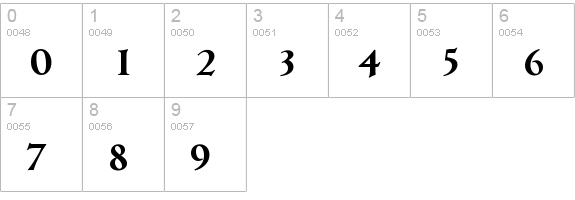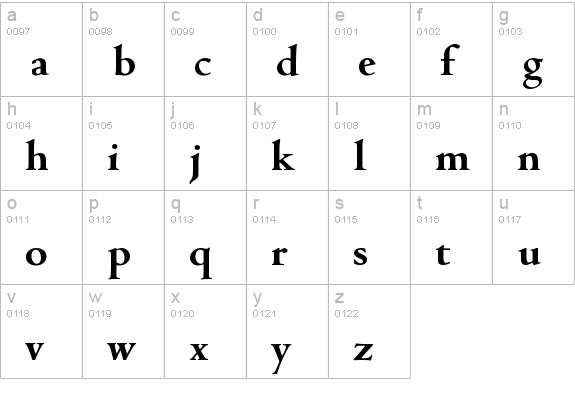
CambridgeSerial-Bold Font Details
CambridgeSerial-Bold is a strong, high-contrast variant in the CambridgeSerial typeface family \xE2\x80\x94 well suited to headlines, attention-grabbing titles, and strong calls-to-action.
CambridgeSerial-Bold is a sleek and modern font that exudes confidence and sophistication. With its bold and strong appearance, this typeface is perfect for making a statement in headlines, logos, posters, and other design projects. The clean lines and sharp edges of CambridgeSerial-Bold give it a contemporary feel while maintaining a timeless elegance. What's even better is that CambridgeSerial-Bold is completely free to download at FontsMarket.com. This means you can easily access this stylish font for all your creative needs without any cost. Whether you're a designer looking to add a touch of class to your work or a business owner in need of a striking font for branding, CambridgeSerial-Bold is the perfect choice. Download it today and elevate your projects with this stunning typeface.